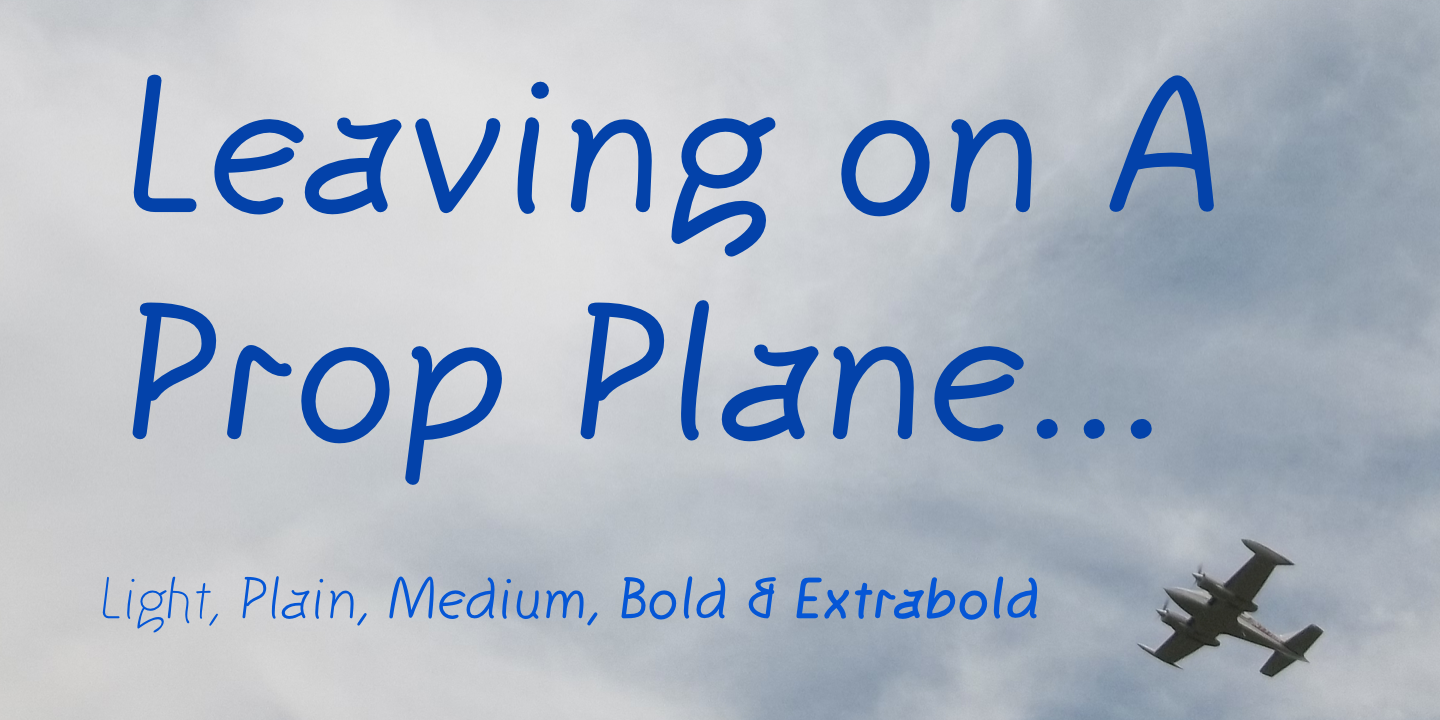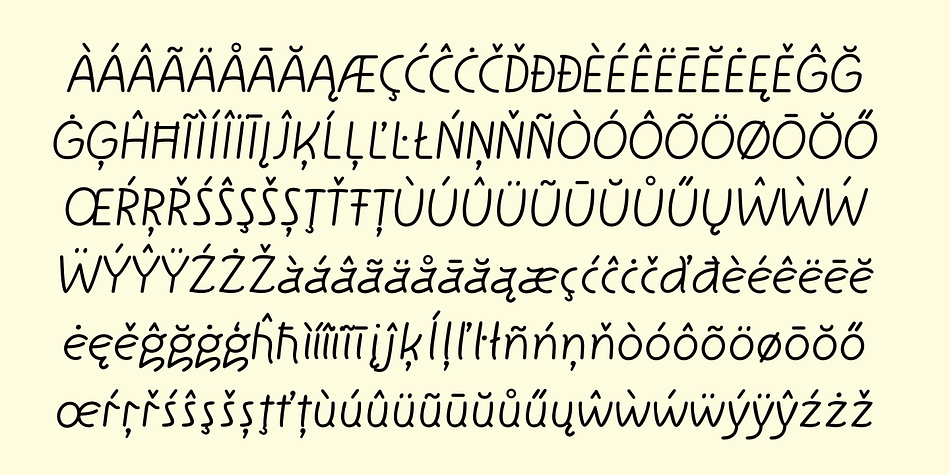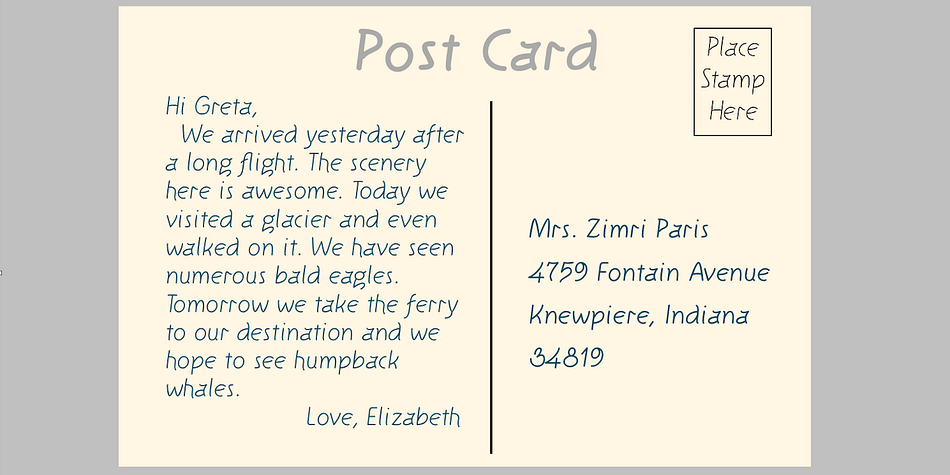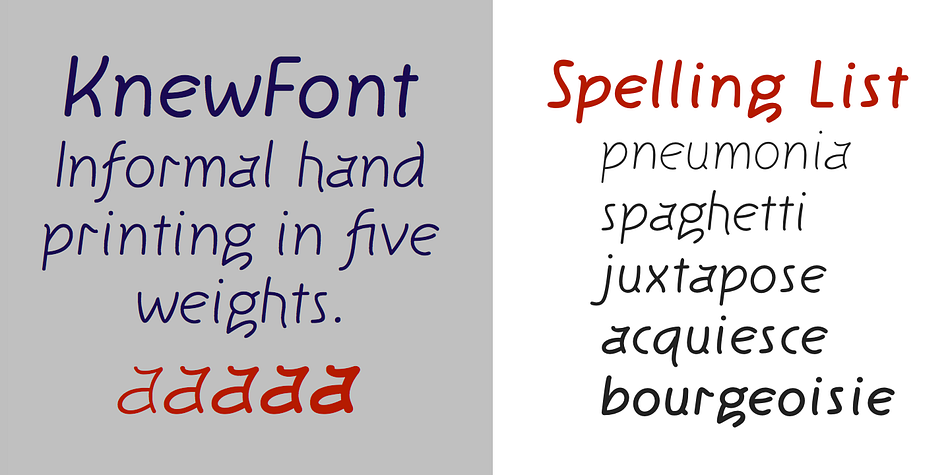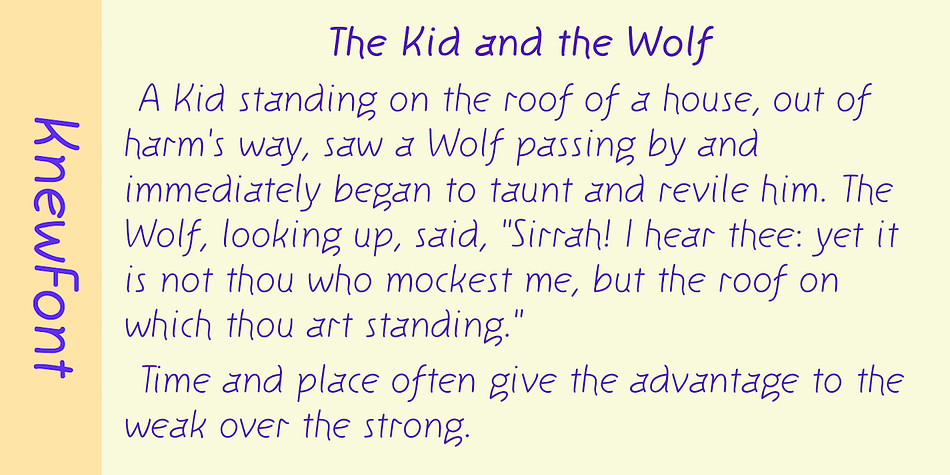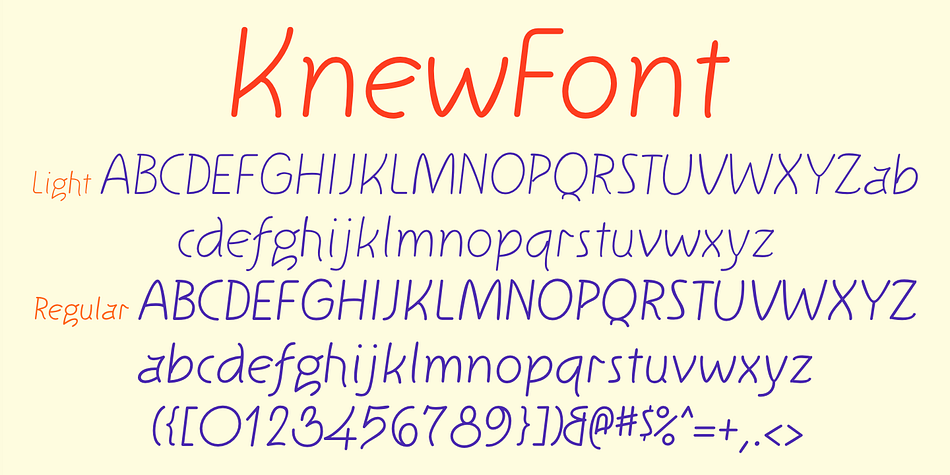
KnewFont
Designed by Robert Schenk, KnewFont is a hand drawn font family. This typeface has five styles and was published by Ingrimayne Type.
KnewFont simulates neat and meticulous hand printing. Its letters slant left and come in five weights.